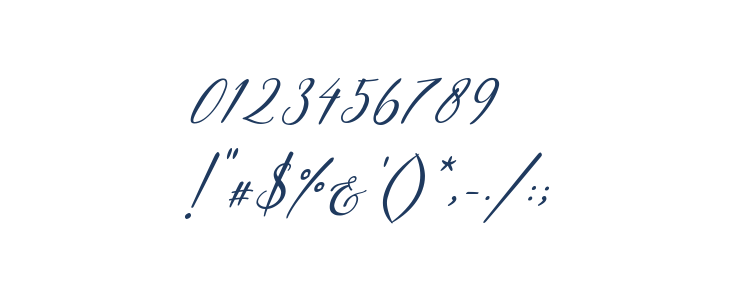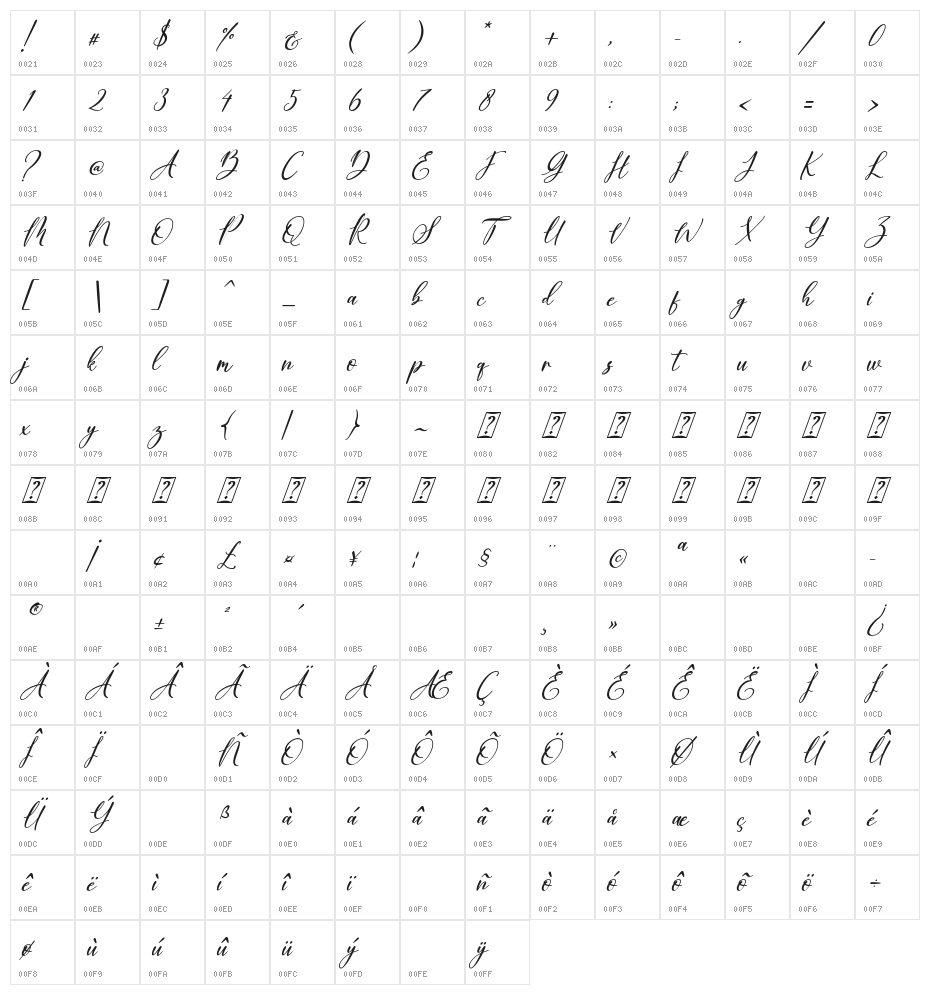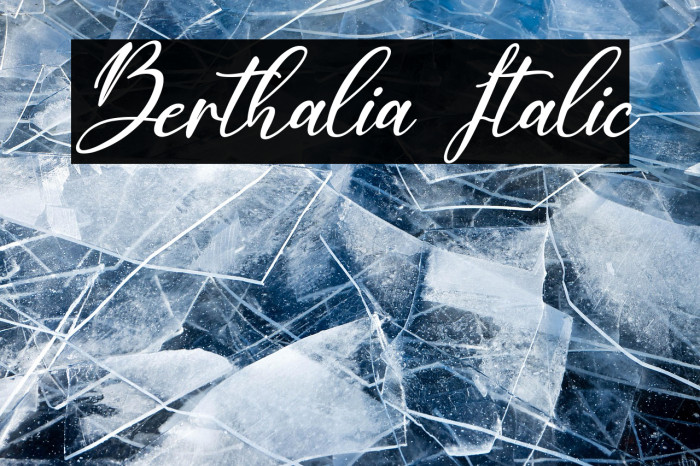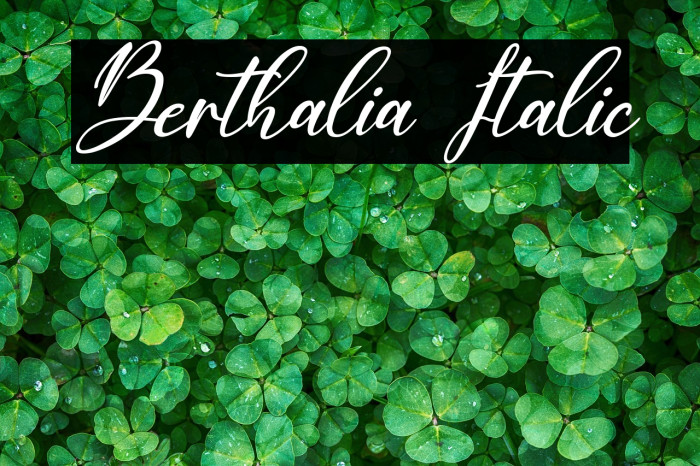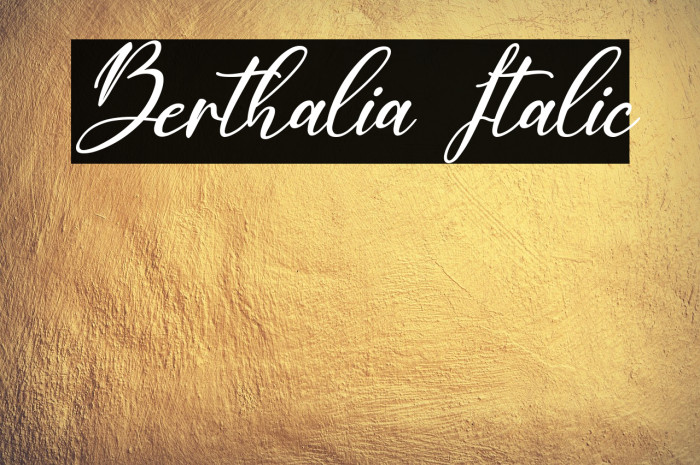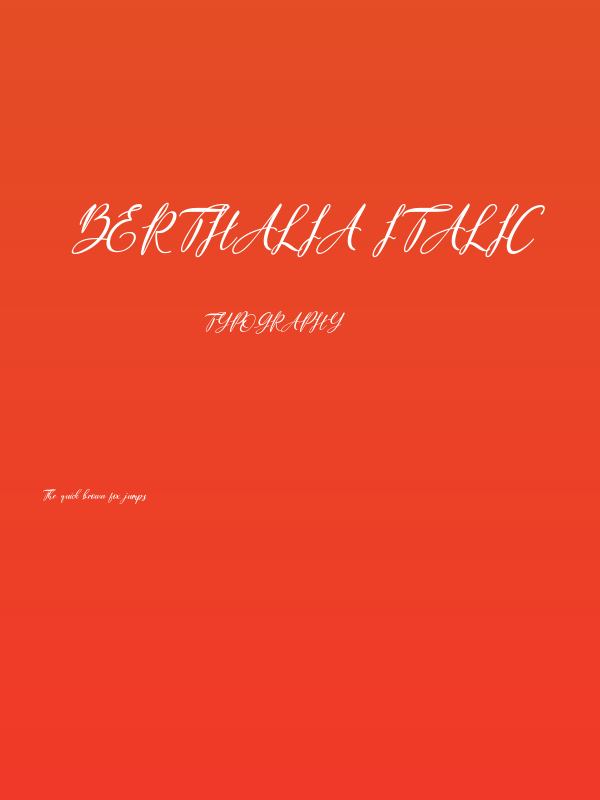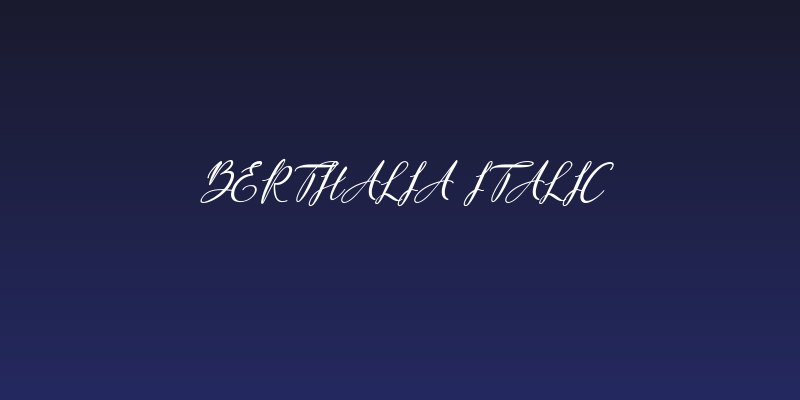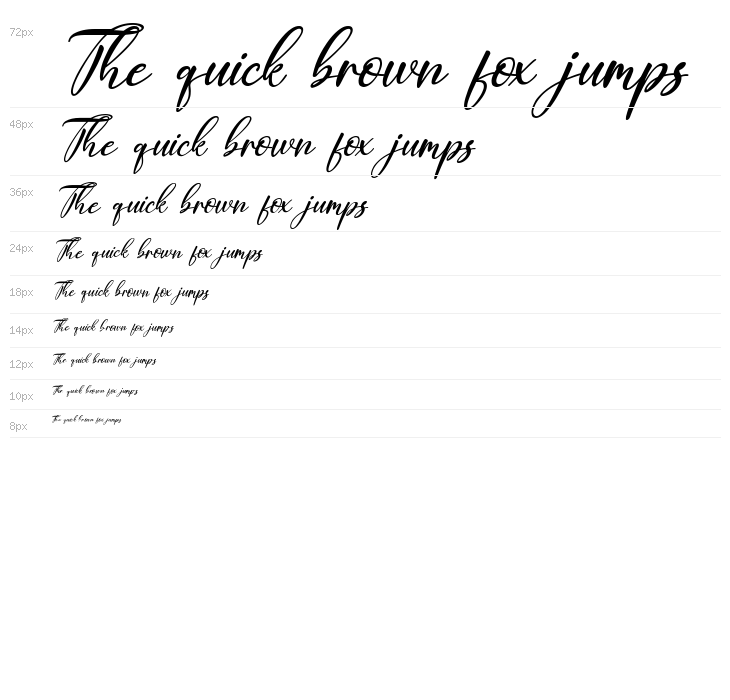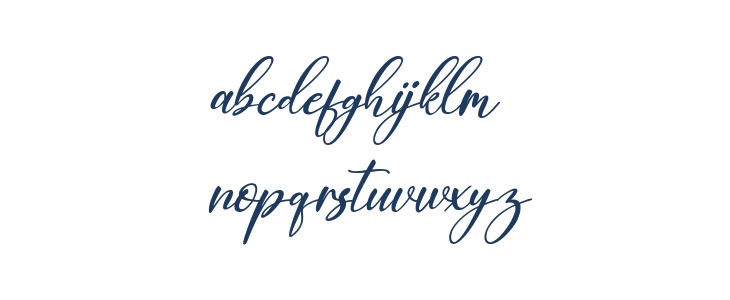
Berthalia Italic Font
Berthalia Italic Description
This elegant script font features flowing, connected letters with a graceful, handwritten style. The uppercase letters are tall and slightly slanted, giving a sense of movement and sophistication. The lowercase letters are equally fluid, with smooth curves and delicate loops. The numerals are consistent with the overall style, maintaining the same elegant flow. Special characters are thoughtfully designed to complement the script's aesthetic. This font exudes a sense of elegance and charm, making it ideal for projects that require a personal or artistic touch.
| Overall Style | Elegant, Artistic |
| Proposed Projects | Ideal for wedding invitations, greeting cards, branding, and elegant logos. |